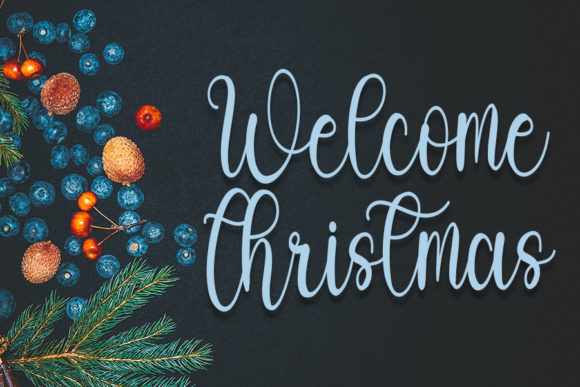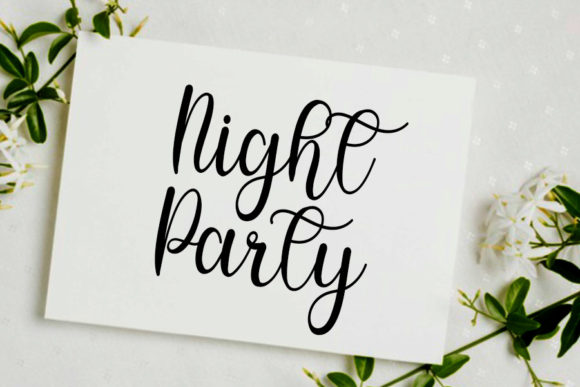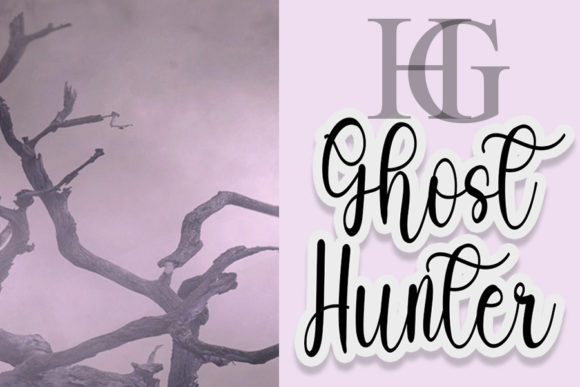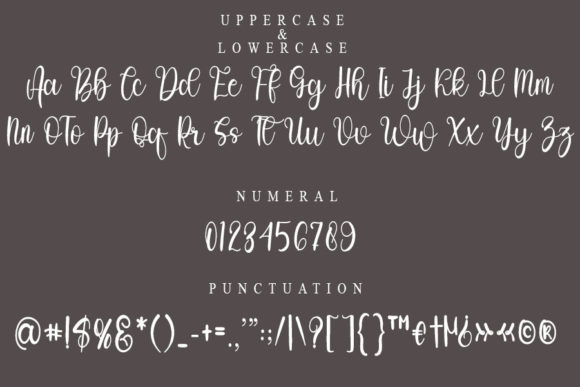
Mythical Font
About Mythical Font
Mythical is an elegant handwritten font. This font’s versatility will appeal to a wide range of crafty ideas, from letterheads and titles, to stationery.